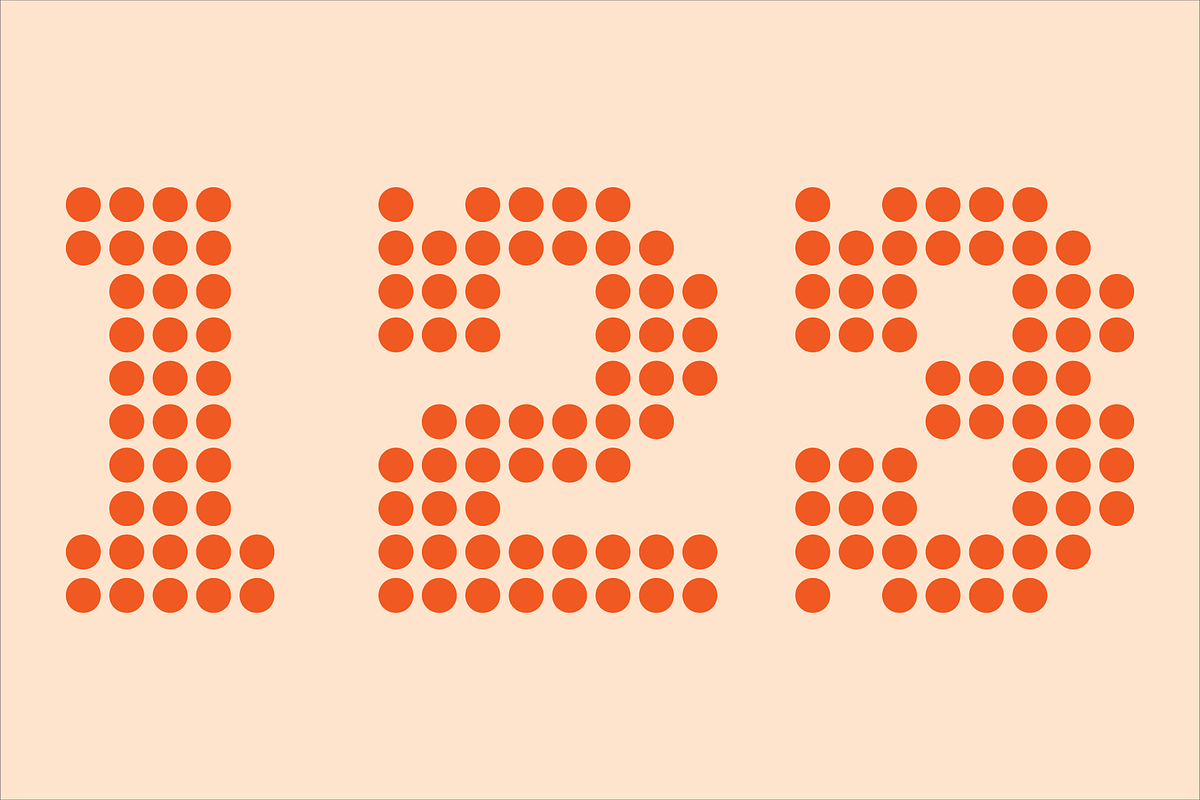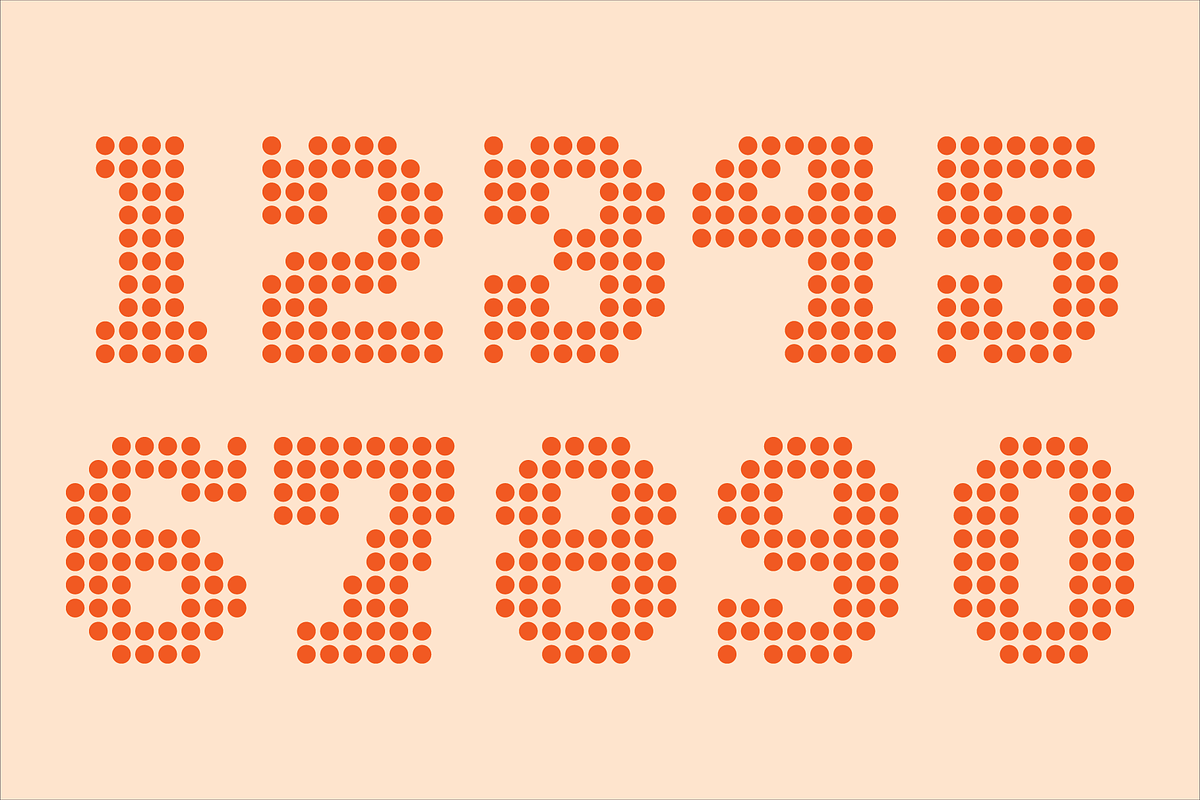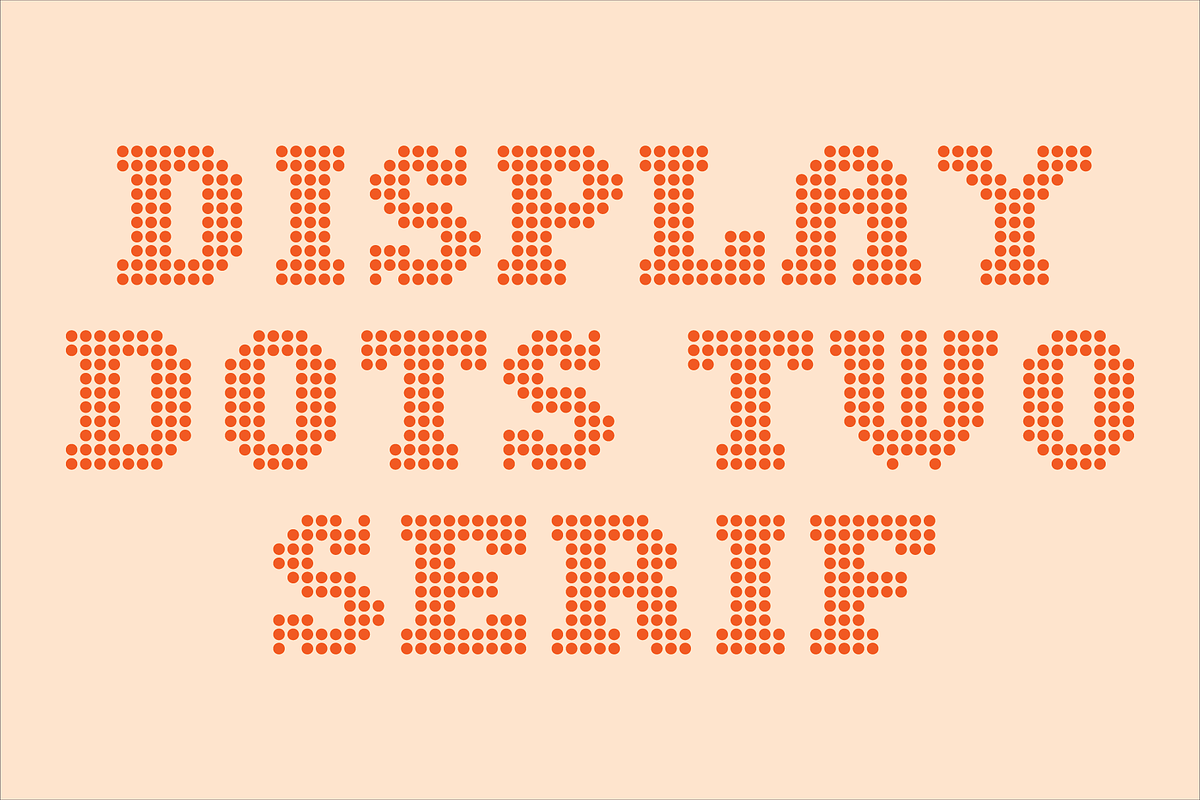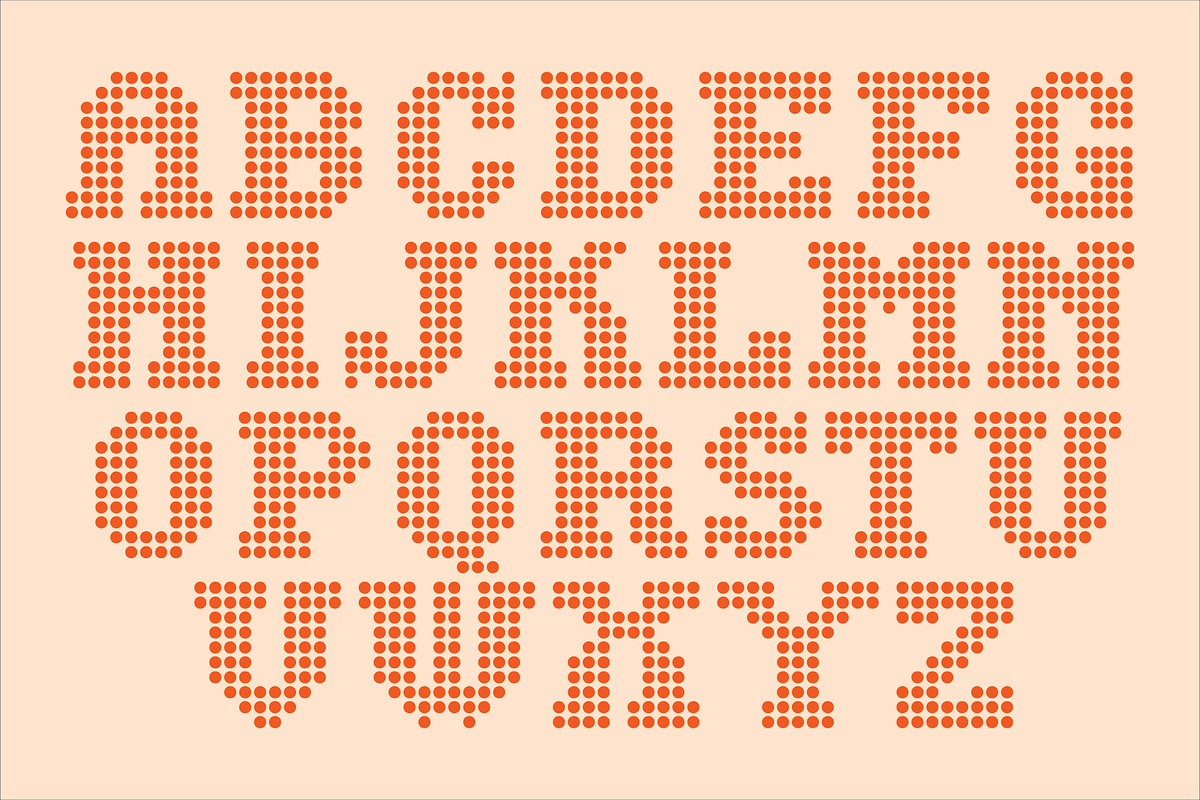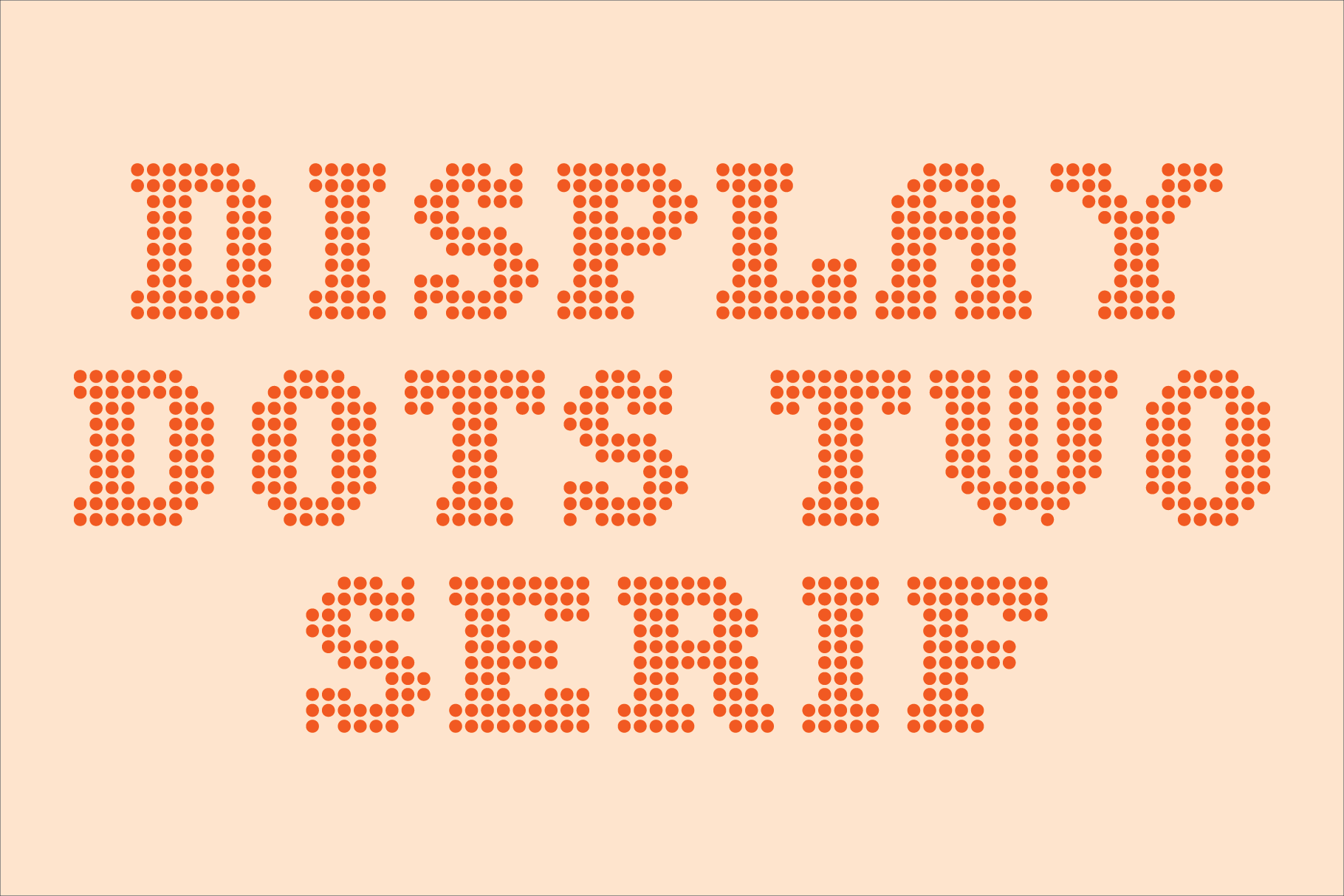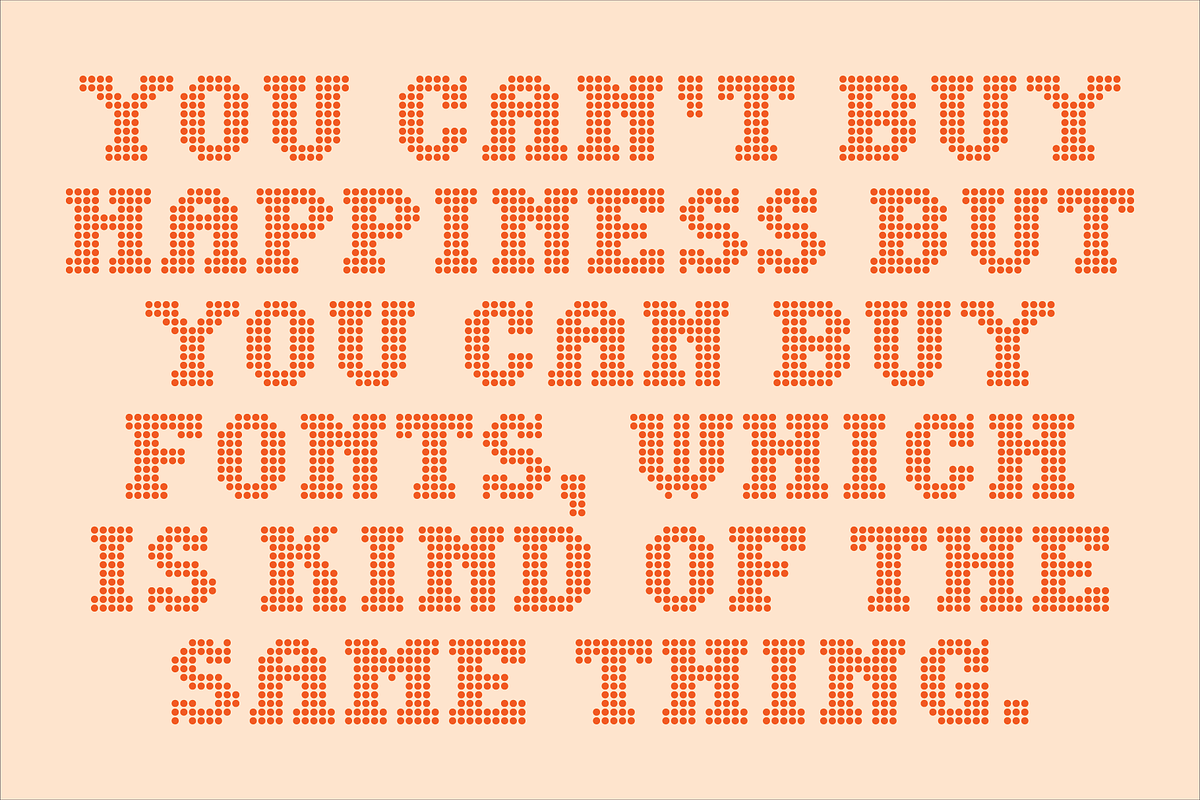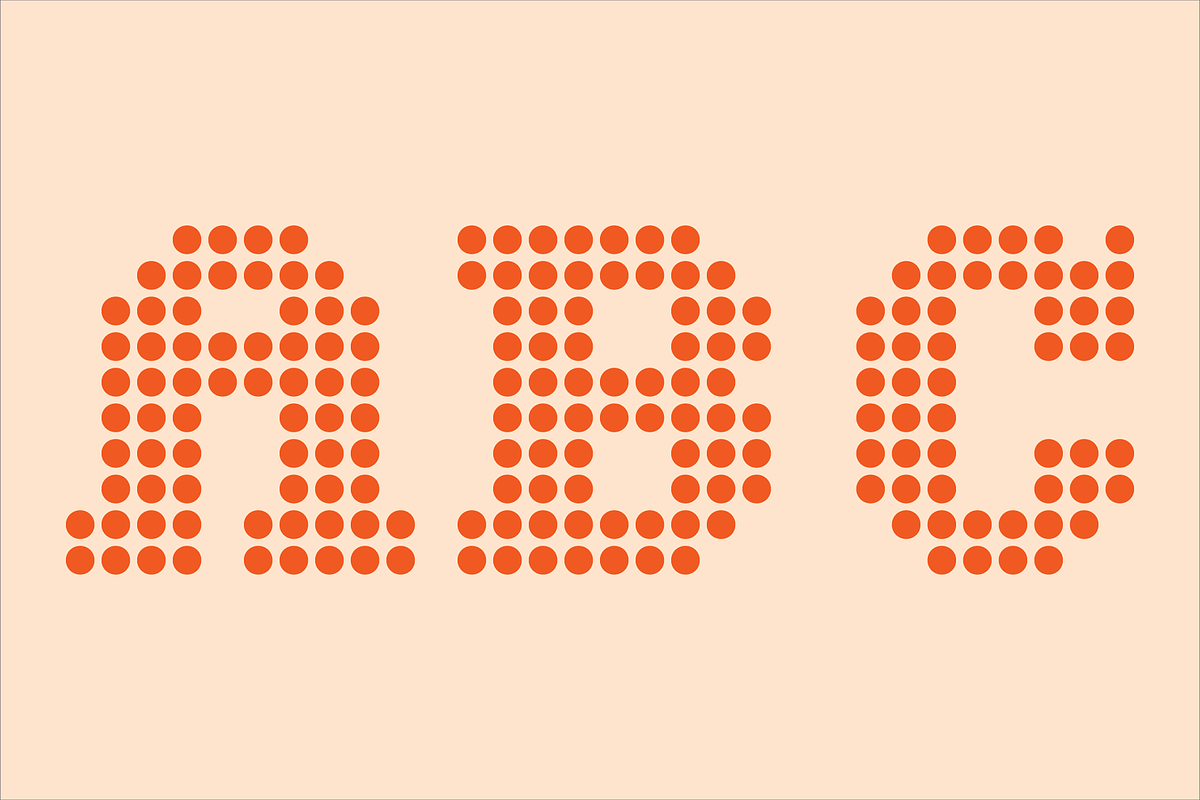
Display Dots Two Serif Font
Display Dots Two Serif is a display font not intended for text use. It was designed specifically for display, headline, logotype, branding, and similar applications. It has an uppercase alphabet, numbers, dollar, pound and euro signs, and basic punctuation. The cap height is 10 dots tall.